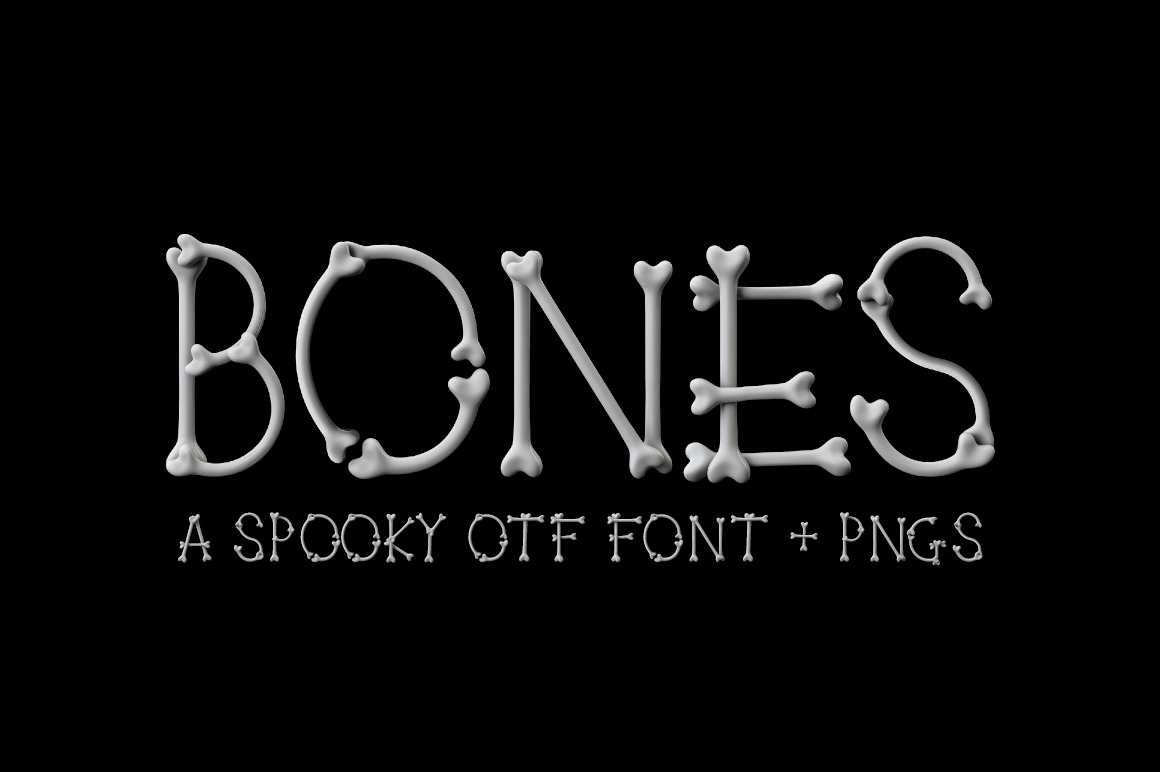
Introducing BONES!
A spooky font perfect for halloween posters and invites!
Bones is a colour OTF font. Each letter has been created in 3D then turned into a simple to use font. Just download and start typing in bold bone lettering.